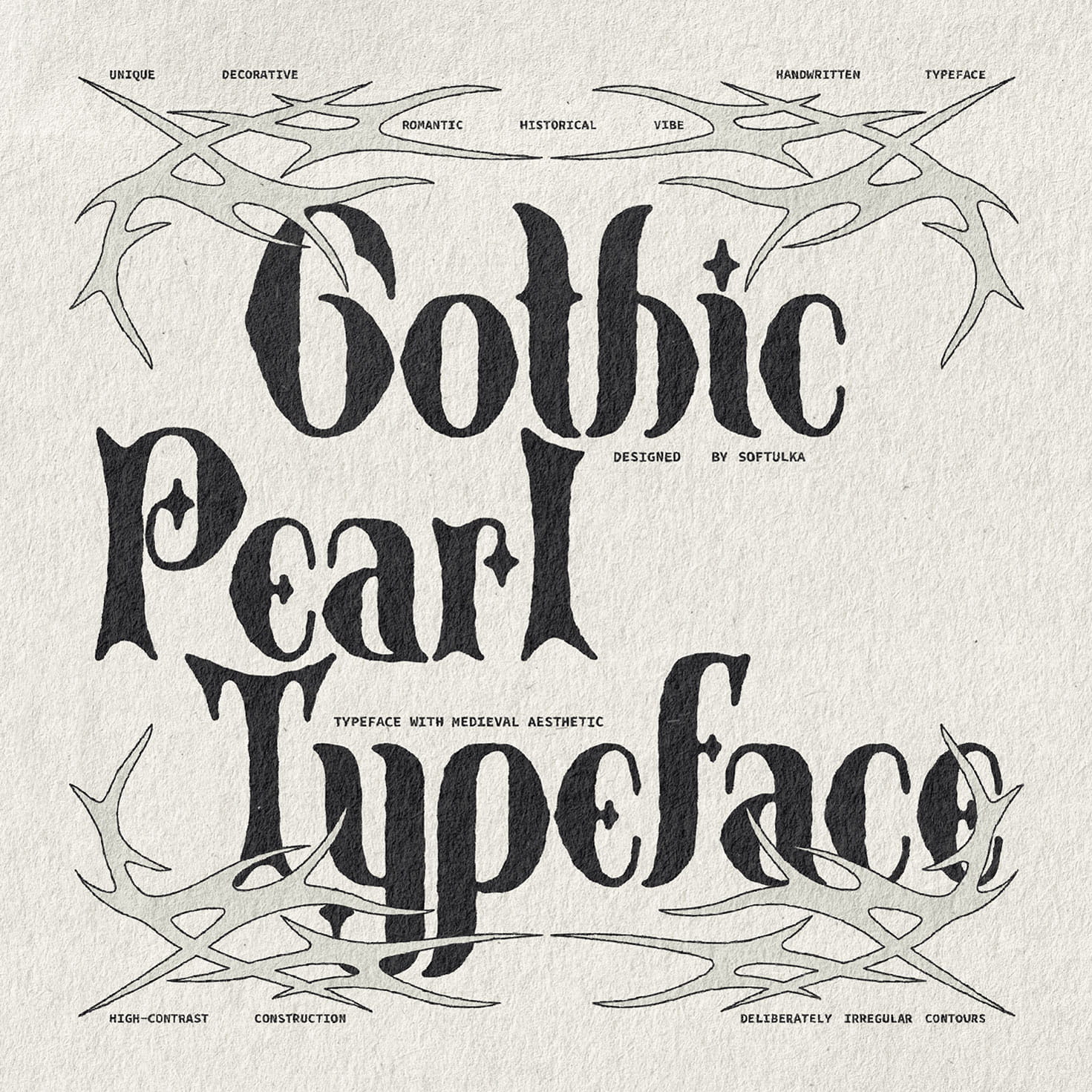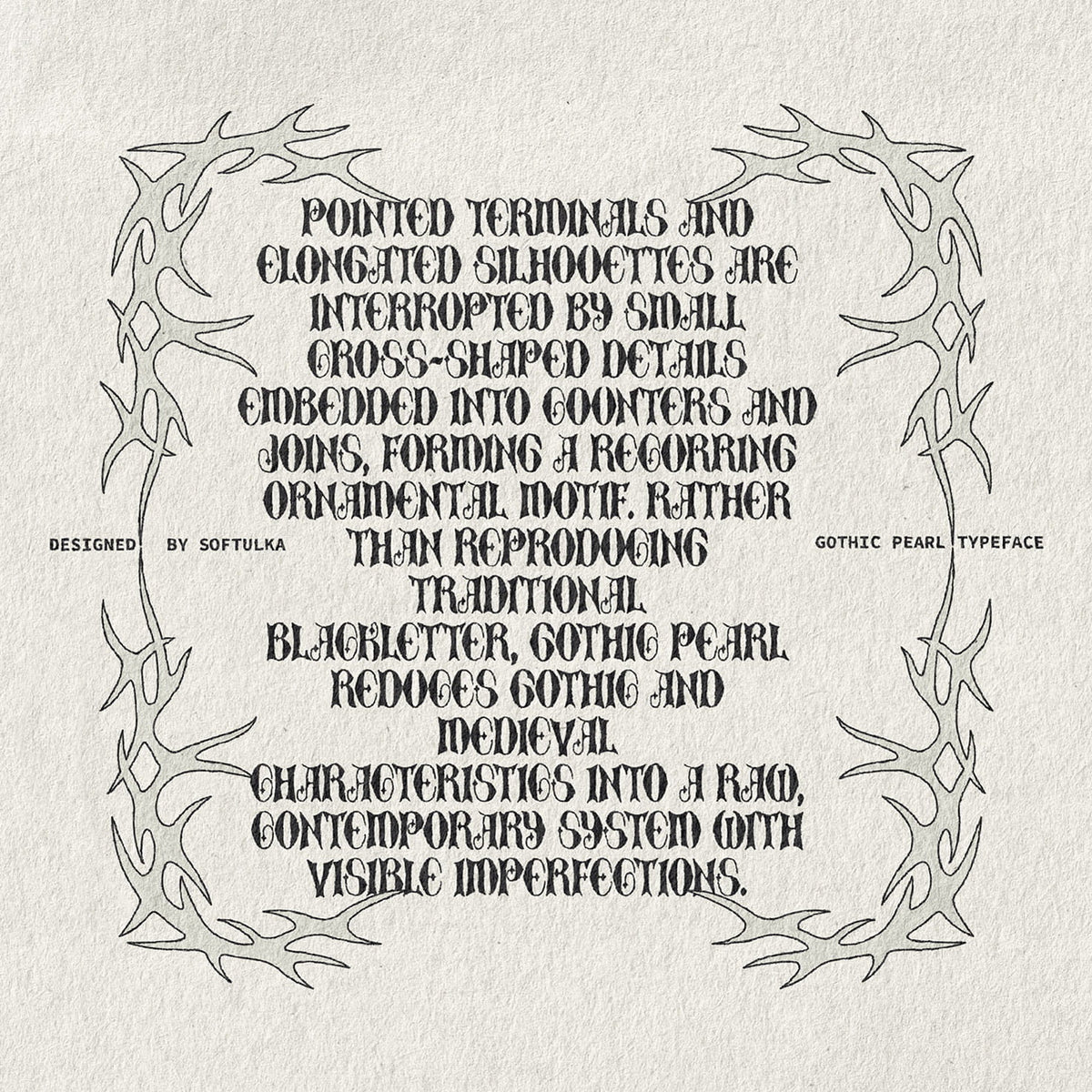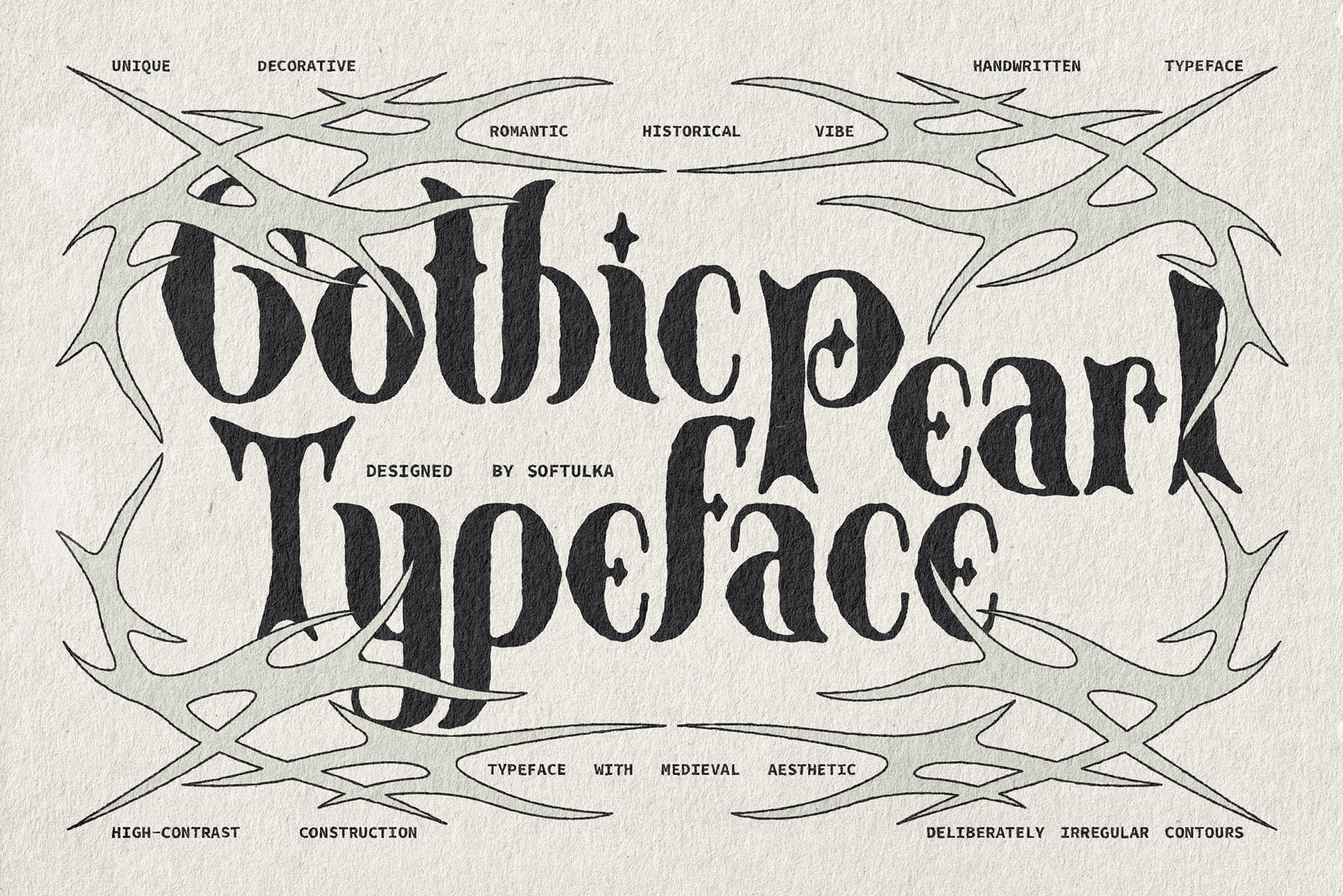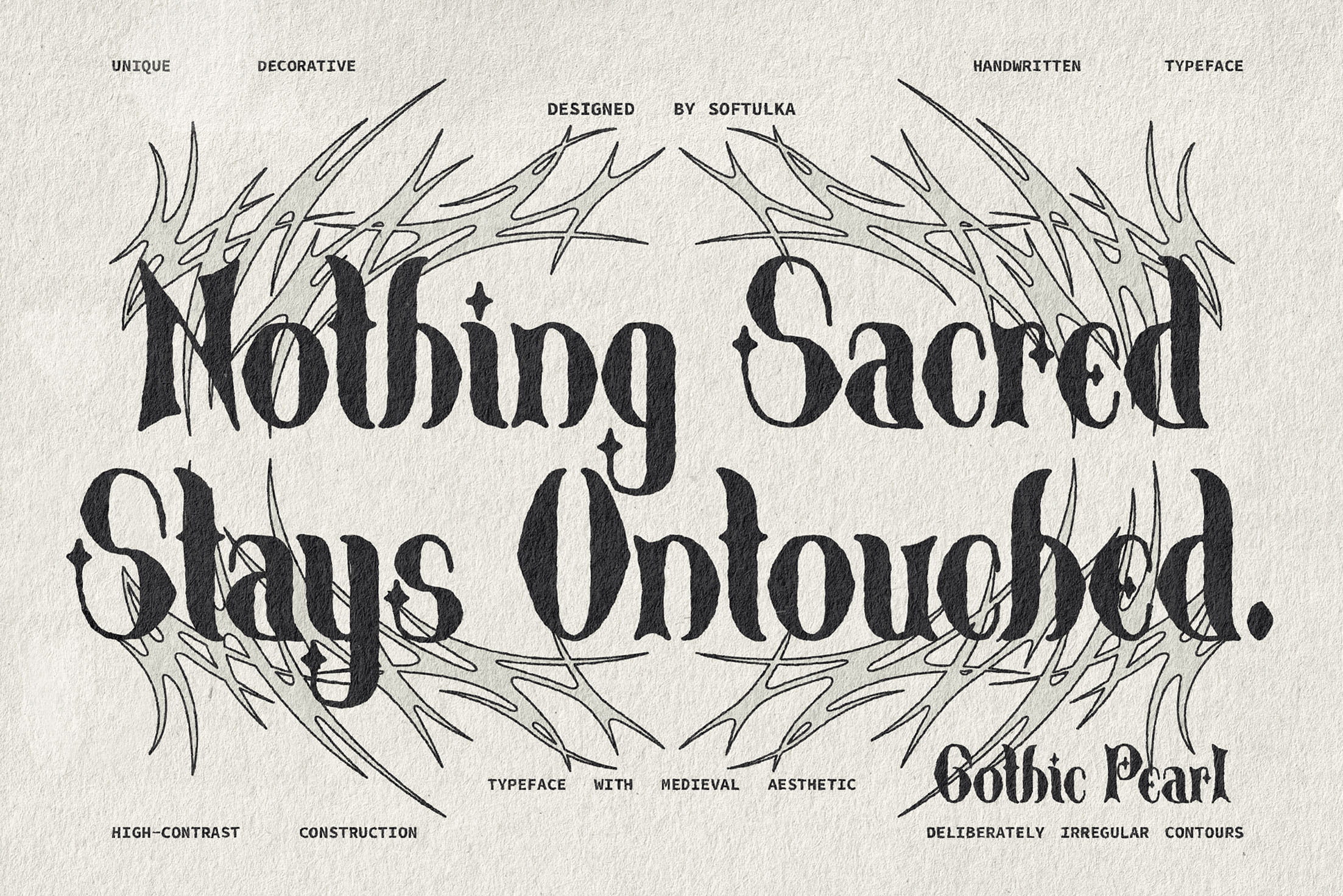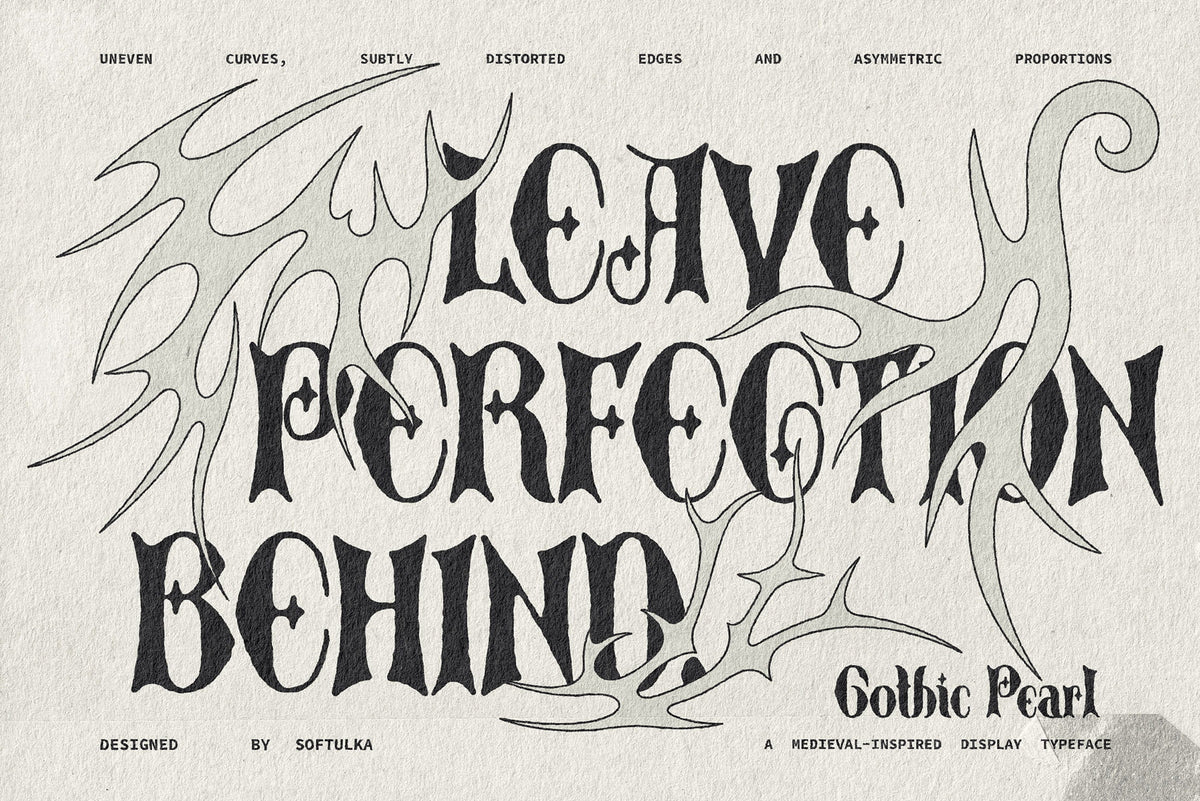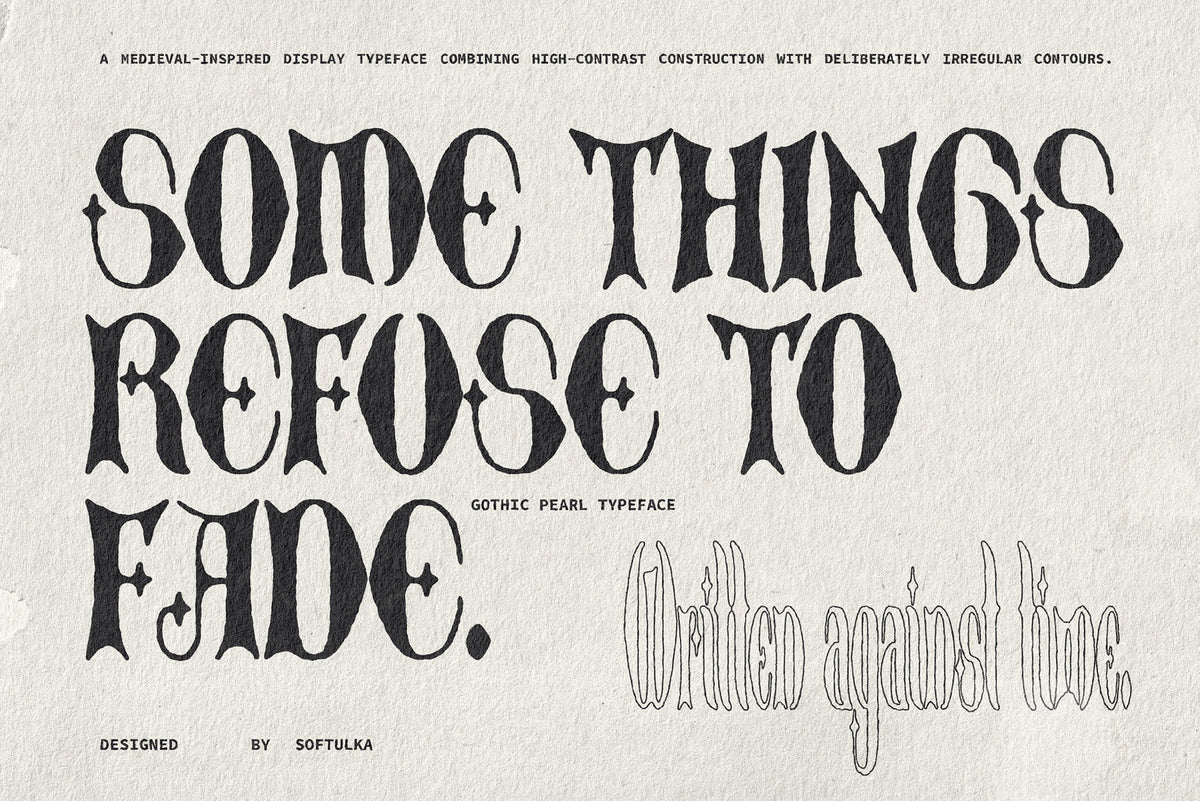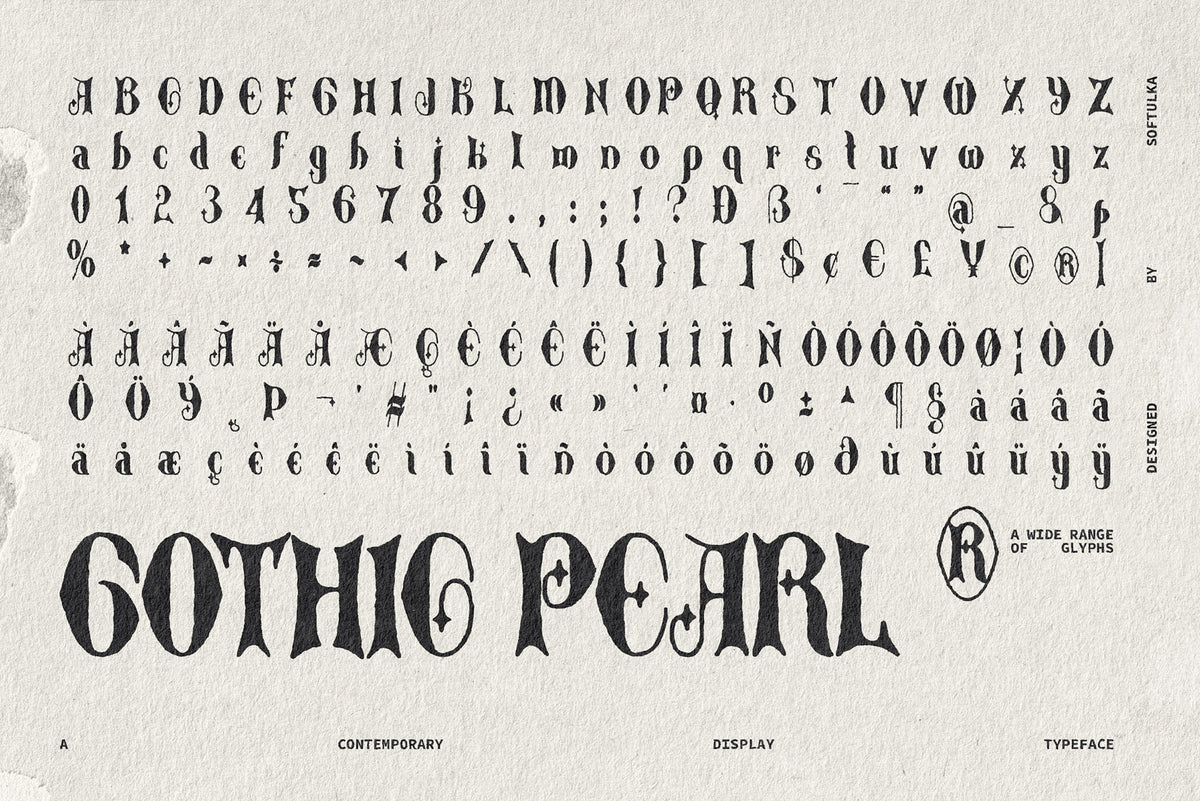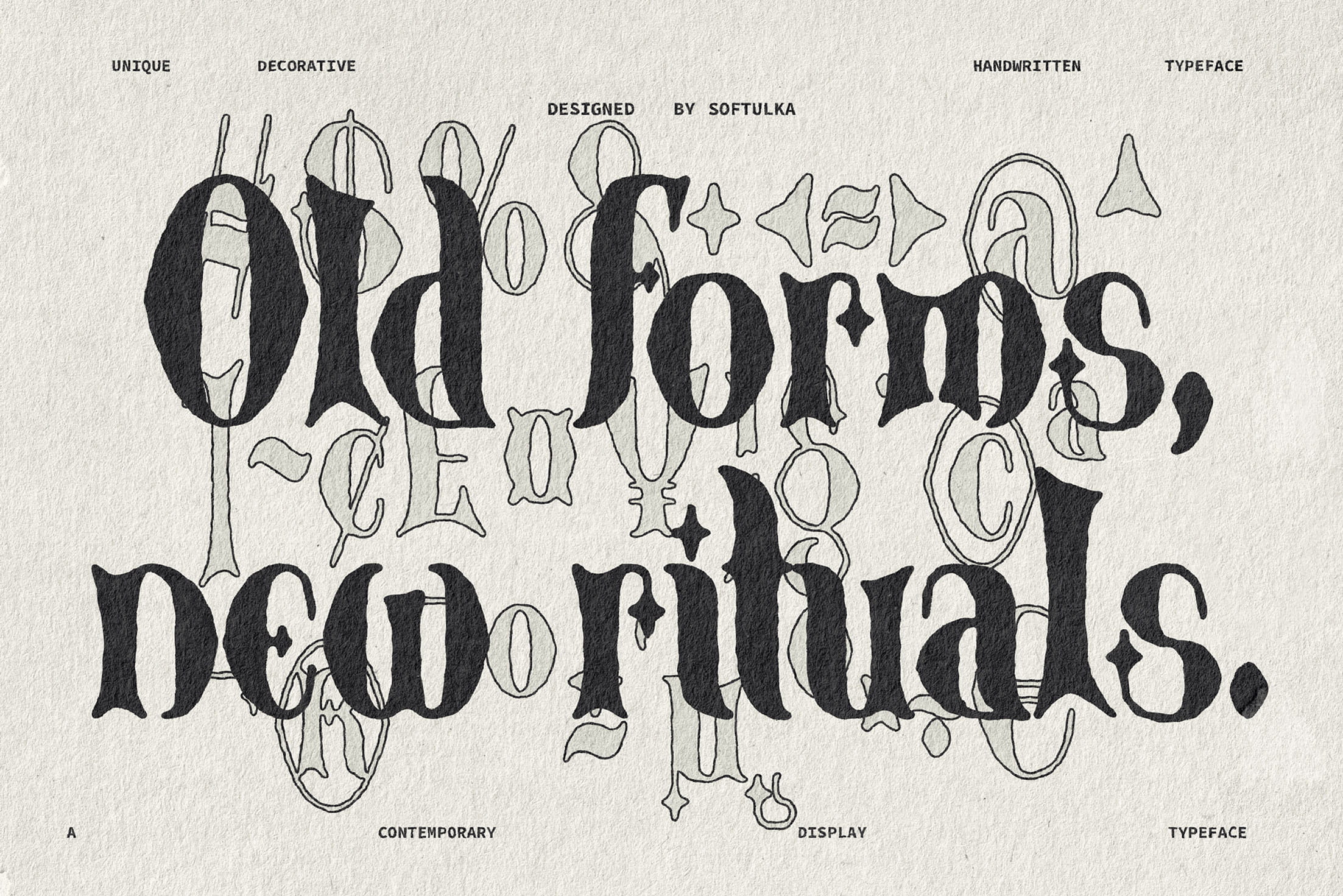
Gothic Pearl Typeface
Gothic Pearl is a raw, contemporary display typeface inspired by medieval lettering, gothic typography, and the irregular character of hand-crafted manuscripts. Its high-contrast construction combines narrow strokes with dense black forms, while distorted curves, asymmetric proportions, and uneven edges give every letter a distinctive handmade presence.
Pointed terminals and elongated silhouettes are enhanced by small cross-shaped details hidden within counters and joins, creating a subtle ornamental motif throughout the character set. Rather than recreating traditional blackletter, Gothic Pearl distills its medieval influences into a darker and more experimental typographic language.
Designed for bold visual statements, Gothic Pearl works particularly well for logos, album covers, posters, fashion graphics, packaging, editorial titles, book covers, and alternative branding. Its imperfect contours and distinctive details make it especially effective when typography needs to feel expressive, mysterious, and slightly unconventional.
• 193 Glyphs
• Lowercase
• Diacritics
• Symbols
• Currency
• Mathematics